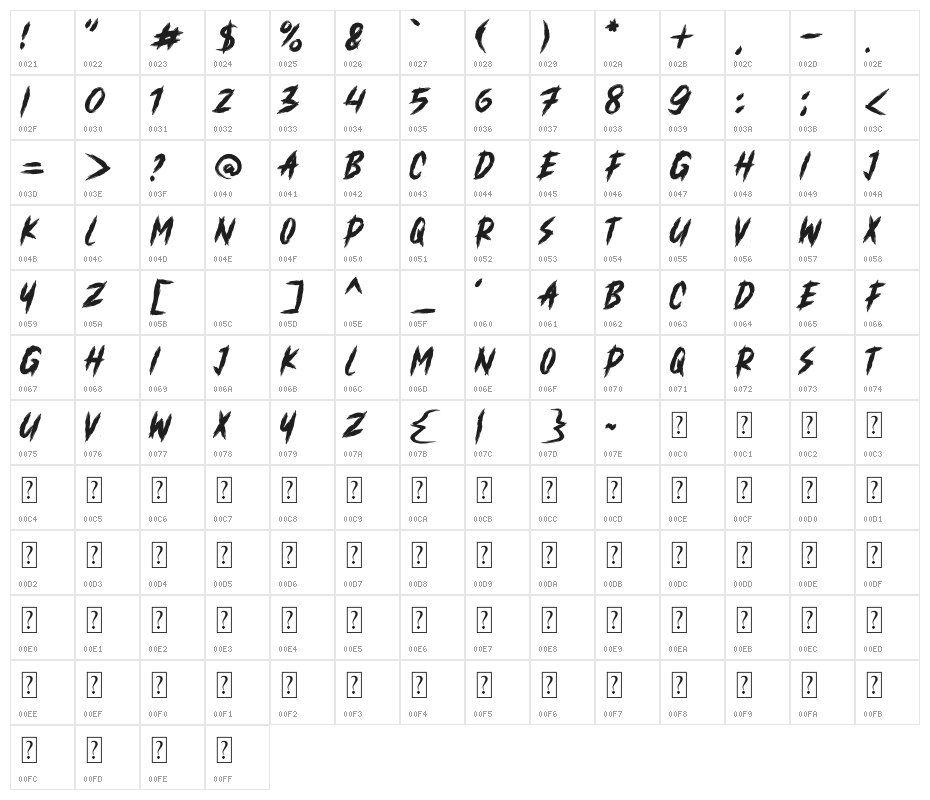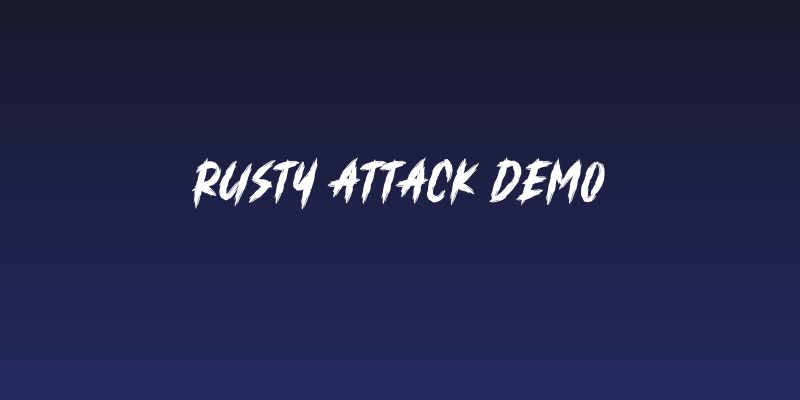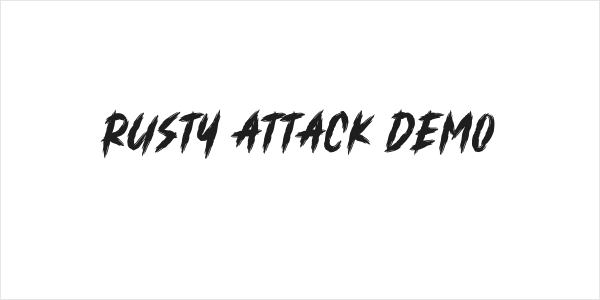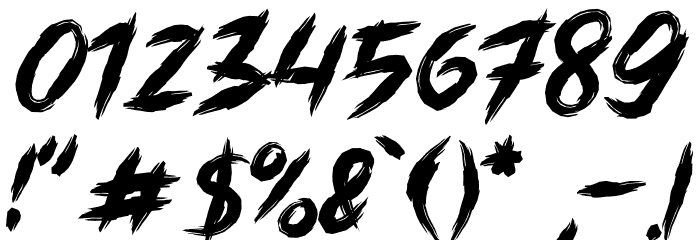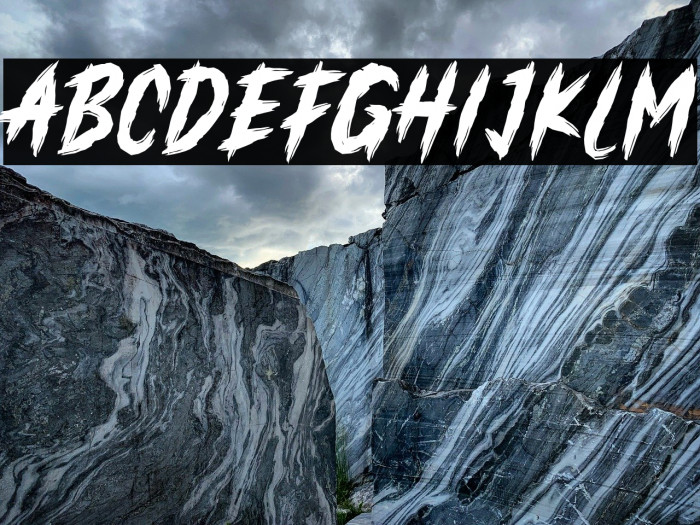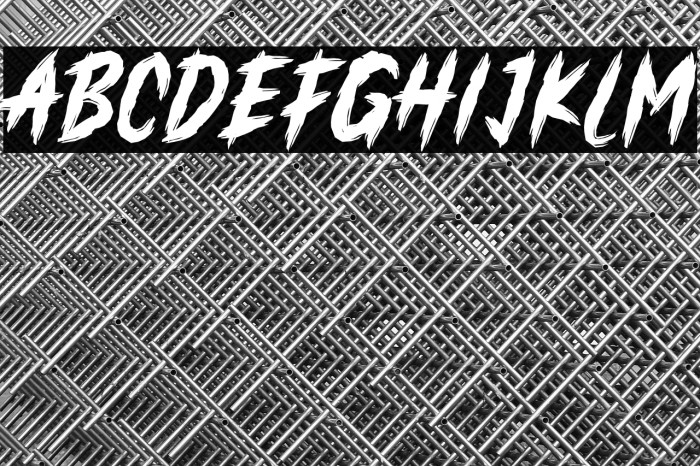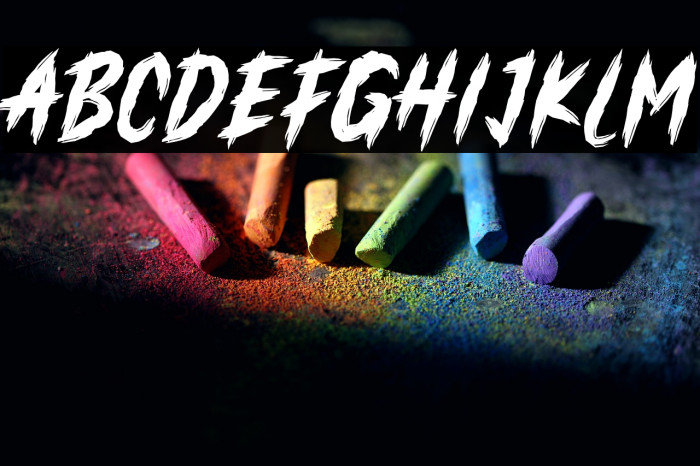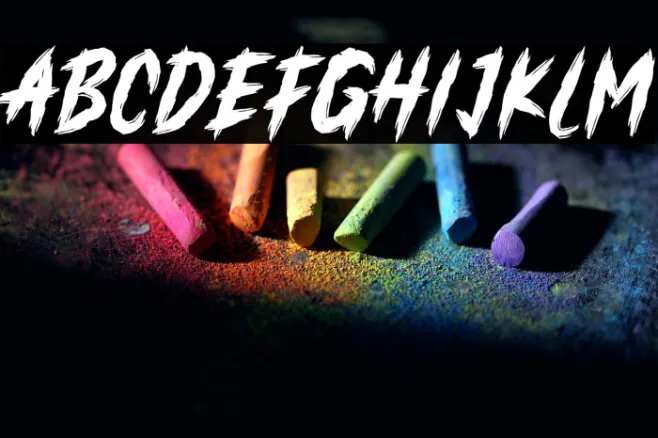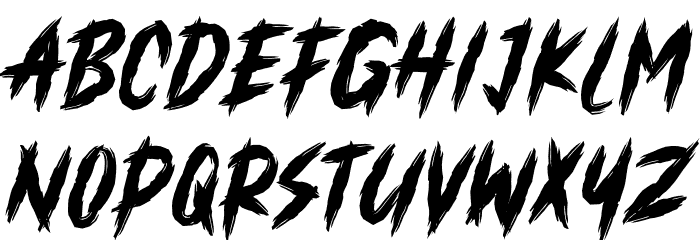
RUSTY ATTACK DEMO Font
RUSTY ATTACK DEMO Description
This font exudes a rugged and aggressive style, characterized by its jagged edges and bold strokes. The letters appear as if they have been scratched or clawed, giving a sense of movement and energy. The uppercase and lowercase letters maintain a consistent style, with sharp angles and irregular shapes that add to the chaotic aesthetic. The numbers and special characters follow the same design principles, ensuring a cohesive look across all glyphs. This font is ideal for projects that require a dramatic and impactful visual presence.
| Proposed Projects | Perfect for horror movie posters, edgy branding, extreme sports logos, and Halloween-themed designs. |